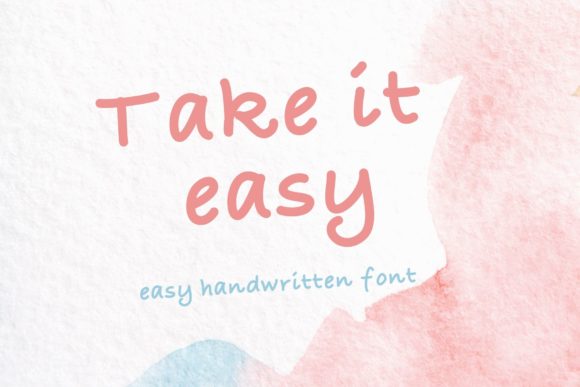
Take It Easy Font for Handmade Products and Branding
Elevating Wedding Stationery with Take It Easy Script Handwritten Fonts
When designing wedding invitations and elegant stationery suites, Take It Easy serves as a perfect example of how Script Handwritten Fonts can transform a simple paper product into a cherished keepsake. As creators in the stationery niche, we know that couples are looking for typography that feels personal yet polished, and this typeface delivers exactly that balance. The endearing quality of the letterforms mimics genuine penmanship without sacrificing the clean lines necessary for professional printing. Whether you are designing a formal invitation suite or a rustic welcome sign, this font provides the authentic touch that mass-produced templates simply cannot replicate.
For wedding signage specifically, readability at a distance is paramount. Take It Easy maintains its sweet aesthetic even when scaled up for large foam boards or acrylic displays. When using this font for headings on seating charts or menu boards, ensure you utilize adequate letter spacing to prevent the characters from feeling crowded. This attention to detail elevates the perceived value of your design services. Because the style is inherently soft and welcoming, it pairs beautifully with watercolor florals or minimalist line art, making it a versatile asset for any wedding stationery designer aiming to offer premium, bespoke packages to their clients.
Creating Authentic Product Labels and Packaging with Take It Easy
Small business owners and handmade sellers often struggle to find Fonts that look professional on packaging while retaining a homemade charm, but Take It Easy bridges this gap effectively for physical products. When creating labels for candles, soaps, jams, or boutique clothing, the typography must communicate quality and care instantly. This Script Handwritten typeface adds an immediate layer of warmth to product packaging, suggesting to the customer that the item inside was crafted with intention. Unlike stiff digital scripts, the natural flow of these letters enhances the unboxing experience and reinforces brand storytelling through visual texture.
Practical application is key when designing for physical substrates like kraft paper, textured cardstock, or clear vinyl. When using Take It Easy for small jar labels or hang tags, test your print size carefully to ensure the thinner strokes do not disappear during the printing or cutting process. For Cricut and Silhouette users, this font generally cuts well due to its balanced stroke weight, but always perform a test cut on intricate swashes if you are using them at very small sizes. The authenticity of this script helps distinguish handmade goods from factory-made competitors, justifying a higher price point by visually communicating the artisan nature of the product.
Designing Best-Selling Printables Using Take It Easy Typography
Digital download creators and template designers will find that Take It Easy is an invaluable asset for producing high-converting printable wall art and planner accessories within the competitive marketplace of Script Handwritten Fonts. In the digital space, customers are drawn to designs that feel organic and human-centric rather than sterile and corporate. This font’s sweet personality makes it ideal for inspirational quotes, nursery decor, and daily affirmation cards. Because the letterforms are distinct yet legible, they photograph exceptionally well in mockups, which is crucial for driving sales on platforms like Etsy or Creative Market where the thumbnail image determines click-through rates.
When incorporating Take It Easy into editable templates for clients, consider how the endearing style interacts with negative space. Printable wall art relies heavily on composition, and this font acts as a strong focal point without overwhelming the layout. For social media templates or Instagram story backgrounds, the authentic handwritten vibe encourages engagement because it feels like a note from a friend rather than an advertisement. Ensure you check the specific licensing terms included with your purchase to confirm you have the rights to use the font in editable templates or flattened digital end-products, as commercial licensing varies between personal crafting and selling digital assets.
Font Pairing Strategies for Take It Easy in Commercial Branding
To maximize the commercial viability of Take It Easy, savvy designers must master the art of pairing this expressive Script Handwritten face with complementary sans serif or serif Fonts to create cohesive brand identities. While this script shines as a display font for logos and headings, it needs a supportive partner for body copy and functional text. A clean, geometric sans serif font creates a modern contrast that allows the sweetness of the script to pop without making the entire design feel too juvenile. Conversely, pairing it with a classic serif font can evoke a vintage or heritage aesthetic, perfect for bakeries, florists, or lifestyle bloggers seeking a timeless look.
Effective font pairing also involves understanding hierarchy and emotional resonance. Use Take It Easy for the primary brand name or emotive taglines, and reserve your secondary font for contact information, pricing, and detailed descriptions. This strategy ensures that the branding remains readable across all touchpoints, from business cards to website headers. When designing for web or social media, remember that the authentic texture of this script can soften the harshness of digital screens, creating a more inviting user experience. Always preview your pairings at various sizes to ensure the endearing character of the script isn't lost when scaled down for mobile viewing or small promotional stickers.
Optimizing Take It Easy for Cutting Machines and Physical Crafts
Crafters utilizing vinyl cutters and laser engravers need Fonts that are not only beautiful but technically sound, and Take It Easy offers a reliable structure for various Script Handwritten applications. When designing for adhesive vinyl stickers or heat transfer vinyl (HTV) for apparel, the connectivity of the script is vital. Disconnected letters can lead to weeding nightmares and failed transfers. This font’s thoughtful construction generally supports smooth cutting paths, but designers should always weld overlapping elements in their cutting software to create a single, continuous cut line. This technical step preserves the authentic flow of the handwriting while ensuring durability on t-shirts, tote bags, and tumblers.
Beyond vinyl, Take It Easy translates beautifully to laser-engraved wood signs and leather goods. The varying stroke width mimics the pressure of a real pen, adding depth to engraved projects that uniform fonts lack. For farmhouse-style signs or personalized gifts, this endearing quality resonates deeply with buyers looking for sentimental value. However, when working with materials that have grain or texture, avoid using the thinnest hairlines of the font, as they may not register clearly against the background material. By understanding the physical limitations and strengths of this typeface, makers can produce professional-grade crafts that stand out in local markets and online craft fairs.